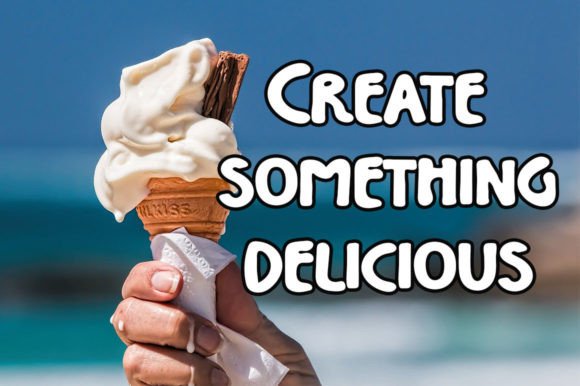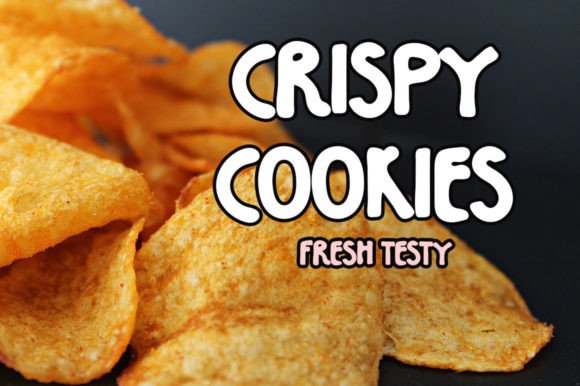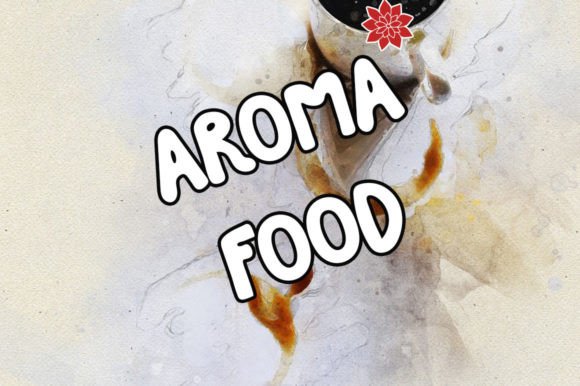
About Garlic Butter Font
**Garlic Butter** is an adorable and charming handwritten font that radiates a warm and friendly feel. This font’s incredible friendliness makes it a versatile choice for a wide range of applications, including logos, prints, cards, posters, and more.
The font’s cute and sweet handwritten style is at the heart of its appeal. It exudes an inviting and approachable quality, making it perfect for designs that aim to create a connection with the audience. Whether you’re designing a playful logo or crafting heartfelt greeting cards, **Garlic Butter** seamlessly adapts to various design contexts.
**Garlic Butter** is equally effective in both digital and print applications. Whether you’re incorporating it into digital designs or using it for printed materials, the font retains its friendly and approachable character. Its readability ensures that your message is conveyed effectively, while its handwritten style adds a personal touch.
What sets **Garlic Butter** apart is its ability to convey a sense of warmth and friendliness. It invites your audience to engage with your creative ideas in a way that resonates with its charming and approachable quality. With **Garlic Butter** as part of your creative toolkit, you have the means to craft designs that foster connections and leave a lasting positive impression.
**Garlic Butter** offers a range of customization options, allowing you to fine-tune your text to match your creative vision precisely. This flexibility empowers you to create designs that align with your artistic preferences with precision.
In conclusion, **Garlic Butter** is more than just a font; it’s a design asset that enhances your creative projects with cuteness, sweetness, and an irresistibly friendly vibe. Embrace its handwritten style, and let it inspire you to create designs that foster connections and radiate positivity. With **Garlic Butter** at your disposal, your creative possibilities are expansive, enabling you to craft memorable and heartwarming works of art through its cute and captivating typography.